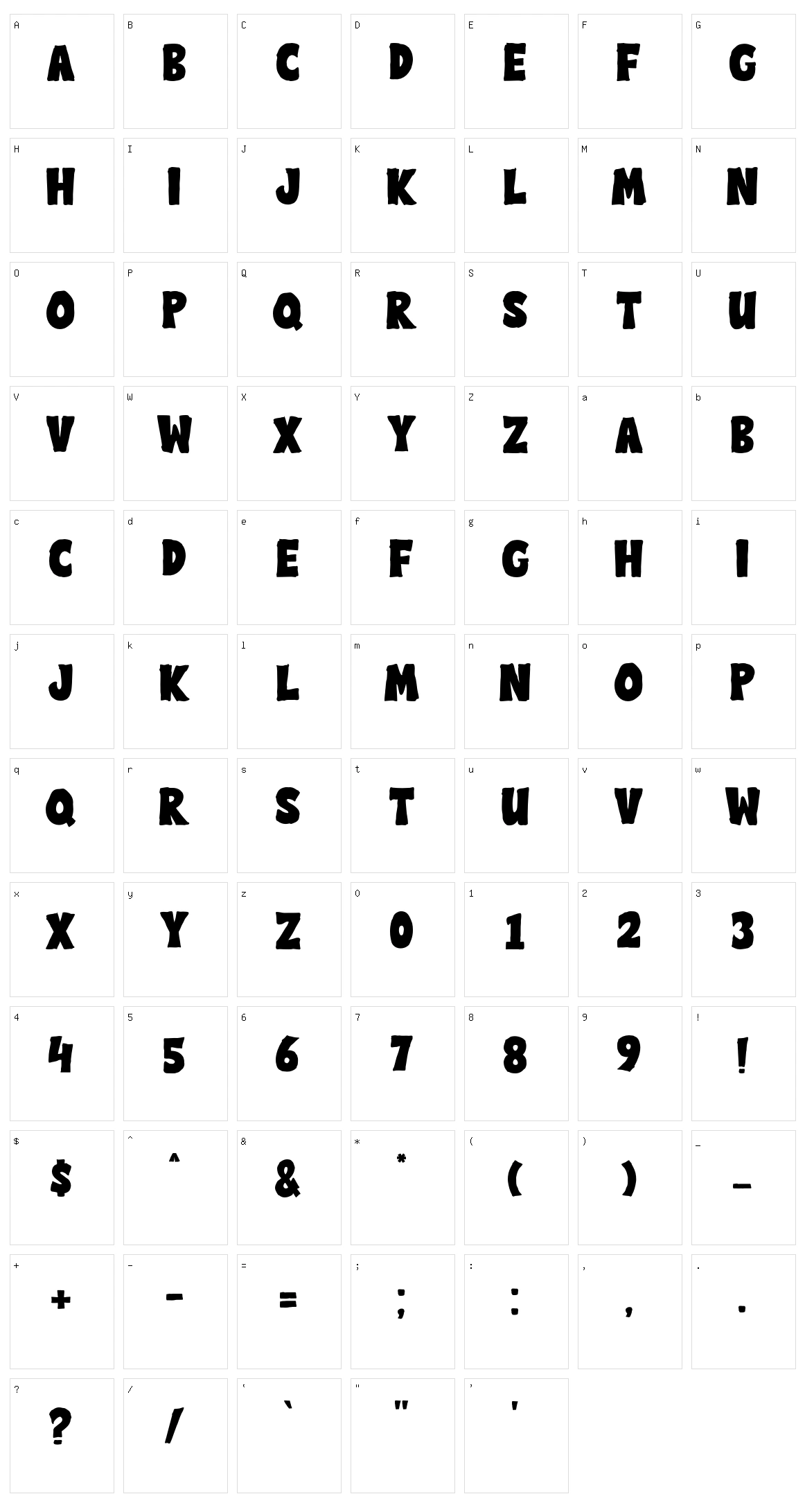
The free font Zombie Monster is carefully designed by AV Type, showcasing a thoughtful balance of creativity and usability and falls under the Halloween font style. When you download the ZIP file, it contains only 144.7 KB of font files, making it lightweight and quick to download. Please review the license details below to understand permitted usage and distribution rights. If license information is not available, we recommend using this font for personal projects only or contacting the author directly for commercial usage permissions.